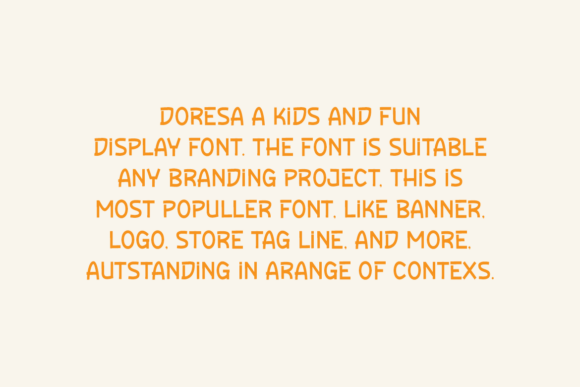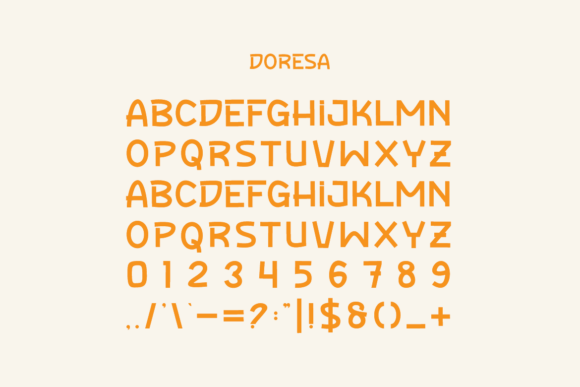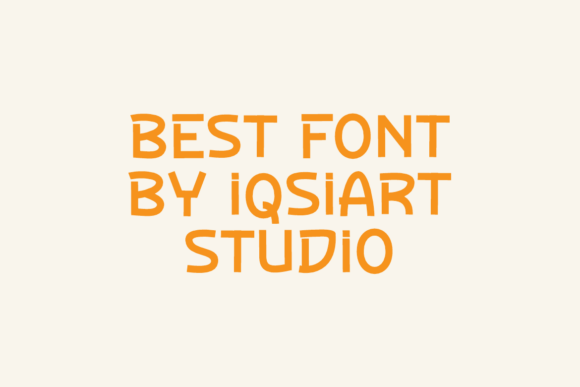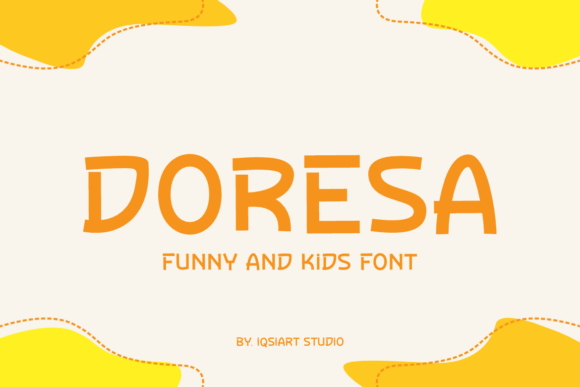
Introduction to Doresa Font
Doresa is a playful, fun font made just for kids.
Its letters are big, round, and a little bit wobbly, making it perfect for adding a cheerful, silly touch to books, posters, and crafts Great for adding smiles to any project.